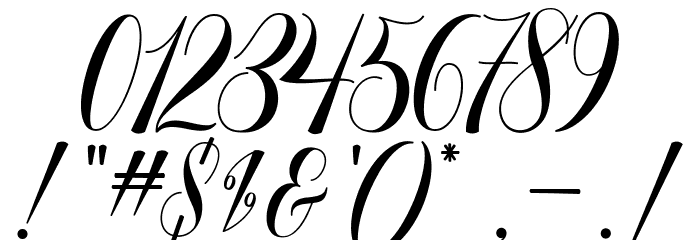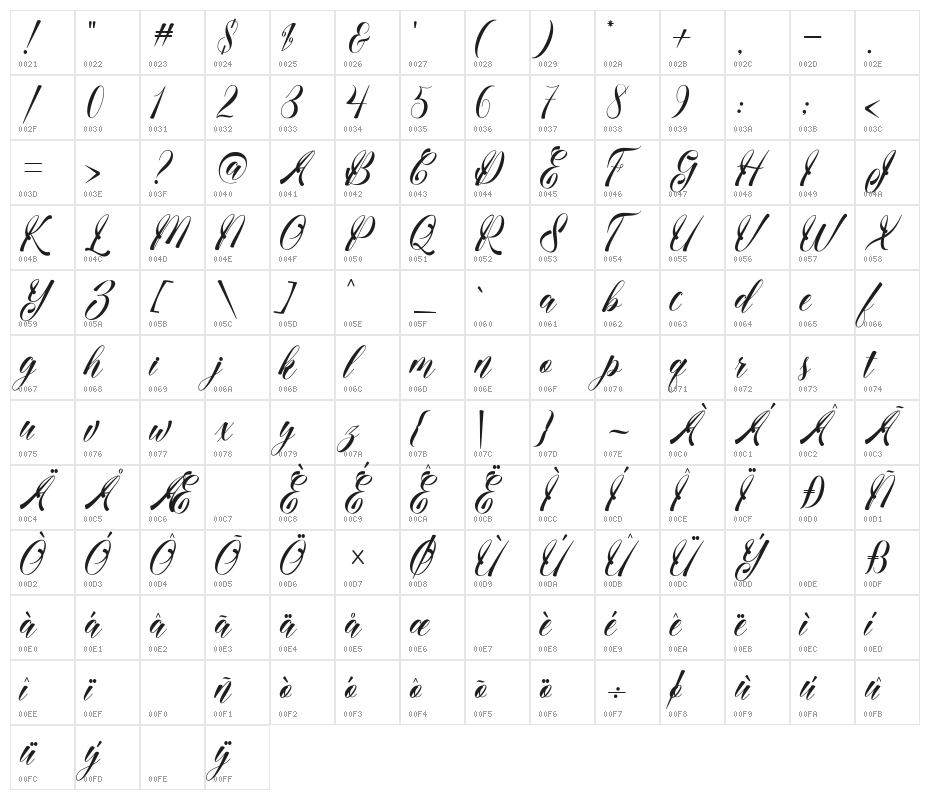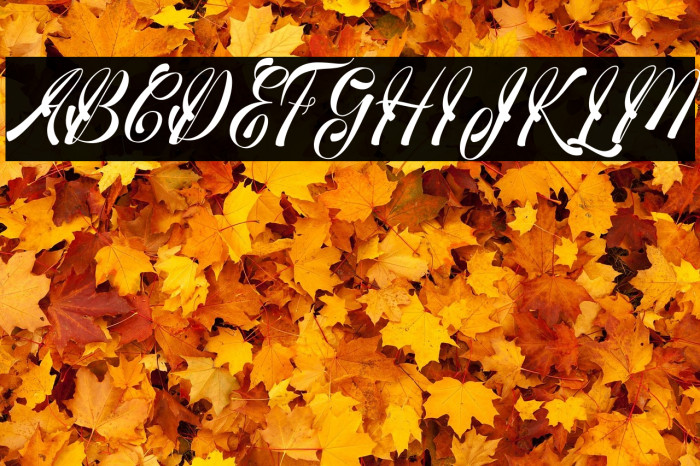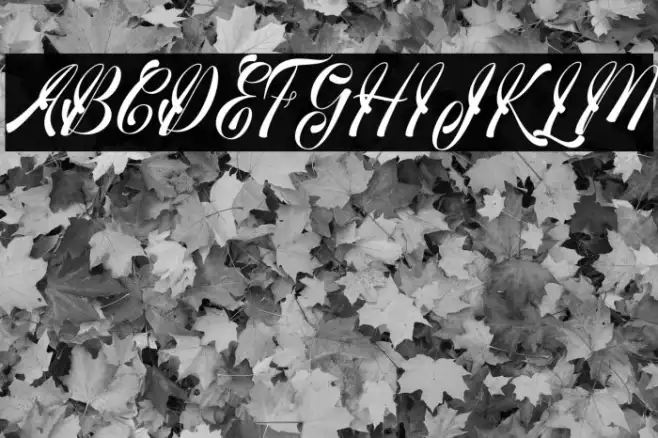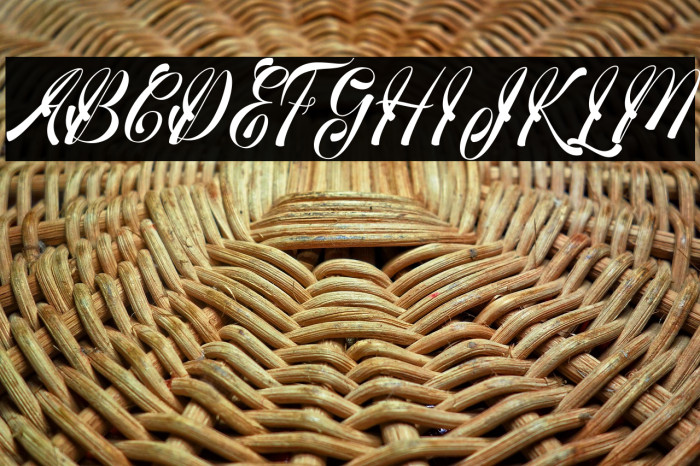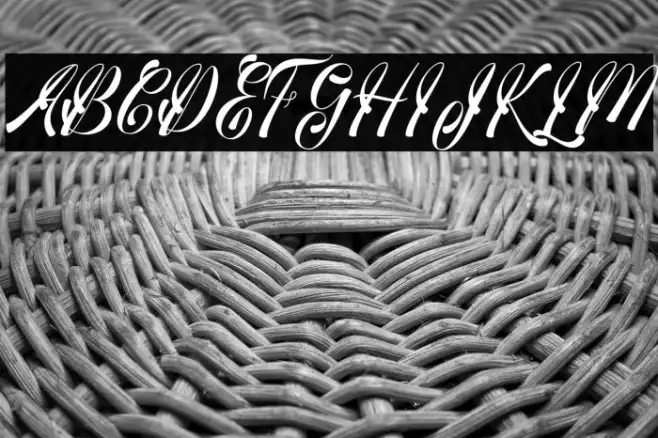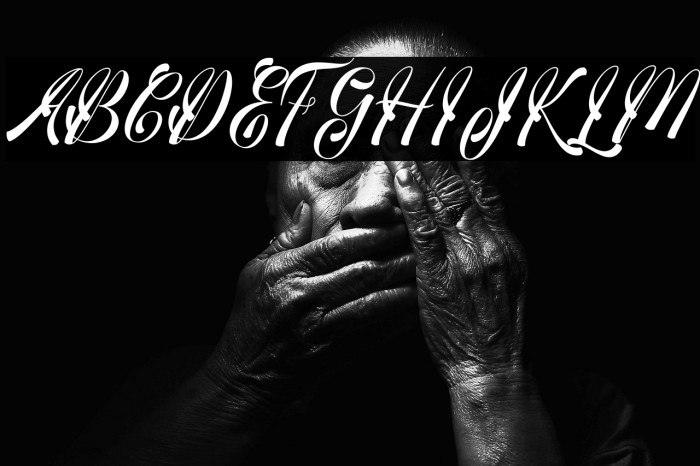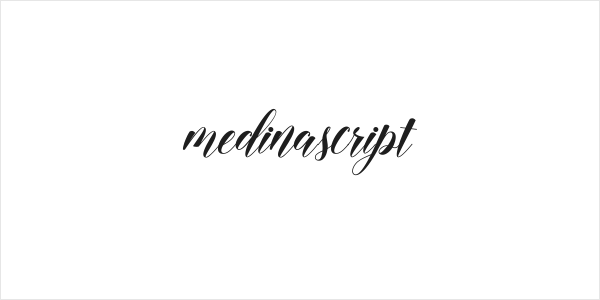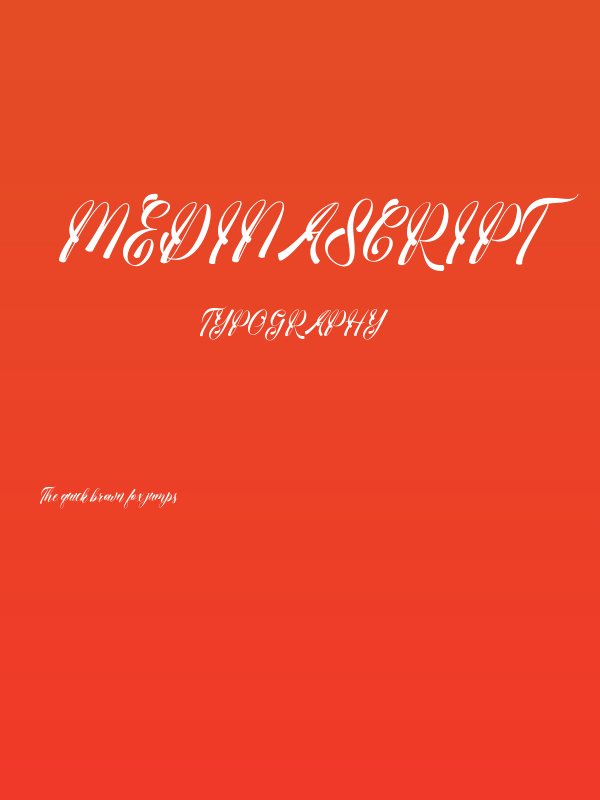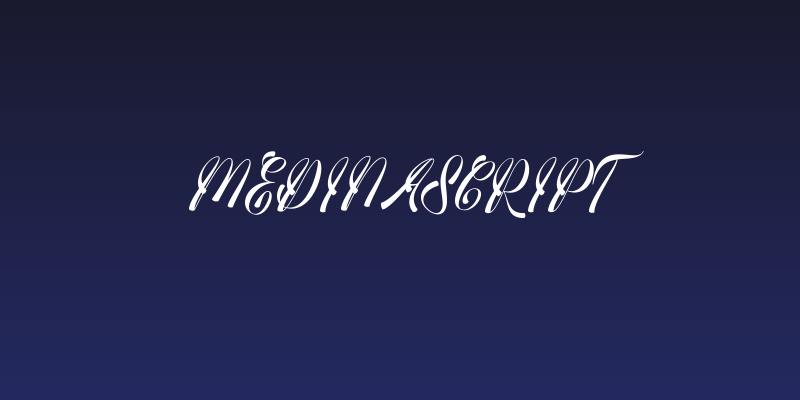
medinascript Font
medinascript Description
This elegant script font features fluid, interconnected strokes that exude a sense of sophistication and grace. The uppercase letters are characterized by their sweeping curves and intricate loops, while the lowercase letters maintain a consistent flow with a slightly more restrained design. The numerals are stylish and complement the overall aesthetic, adding a touch of flair to any composition. Special characters are thoughtfully integrated, ensuring versatility in various design contexts. The font's high contrast between thick and thin strokes enhances its readability and visual appeal, making it suitable for a range of creative applications.
| Proposed Projects | Ideal for wedding invitations, luxury branding, elegant packaging, and high-end editorial design. |